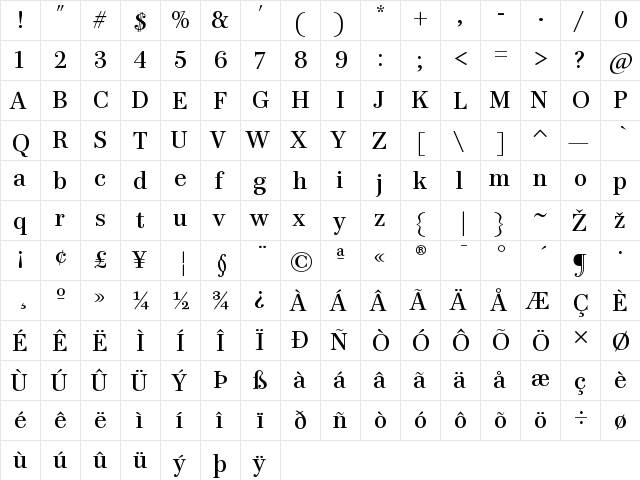
PB48TTP-Roman Regular
Design Context for PB48TTP-Roman Typeface
PB48TTP-Roman takes a measured approach to typography — its balanced proportions and neutral character make it a reliable workhorse for both digital and print work.